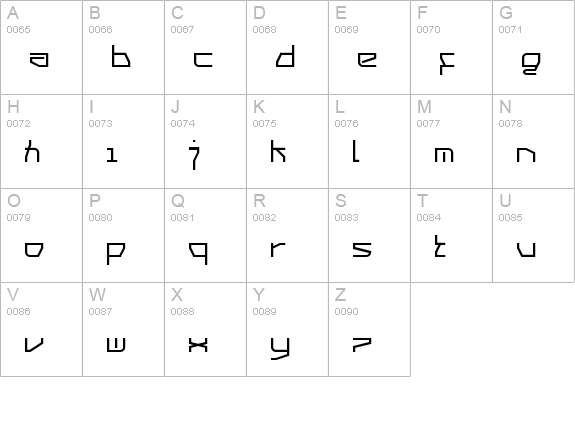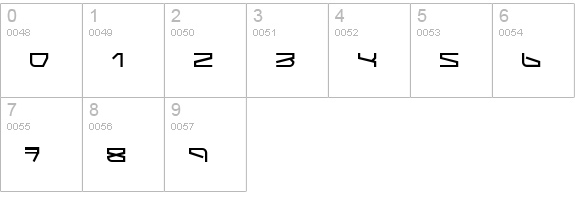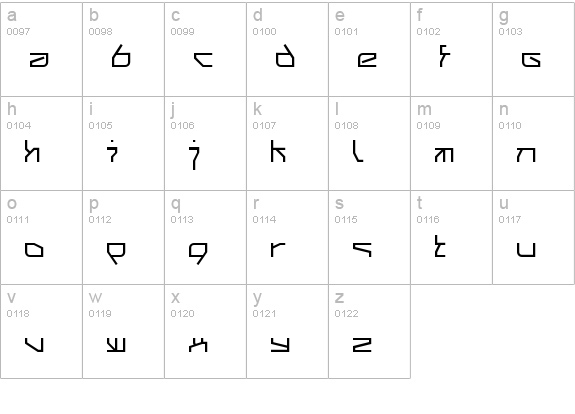
03.20 1 font is a captivating and versatile typeface that exudes elegance and sophistication. With its clean lines and modern aesthetic, this font is perfect for a wide range of design projects, from branding to editorial design. The sleek and minimalistic design of 03.20 1 font will add a touch of refinement to any creative work. What's even better is that 03.20 1 font is freely available to download at FontsMarket.com. This means that you can easily access this stunning font and incorporate it into your projects without any hassle. Whether you're a graphic designer, a web developer, or a creative enthusiast, 03.20 1 font is sure to elevate your designs and make them stand out. Don't miss out on the opportunity to enhance your projects with the timeless beauty of 03.20 1 font. Download it for free today at FontsMarket.com and take your design work to the next level.